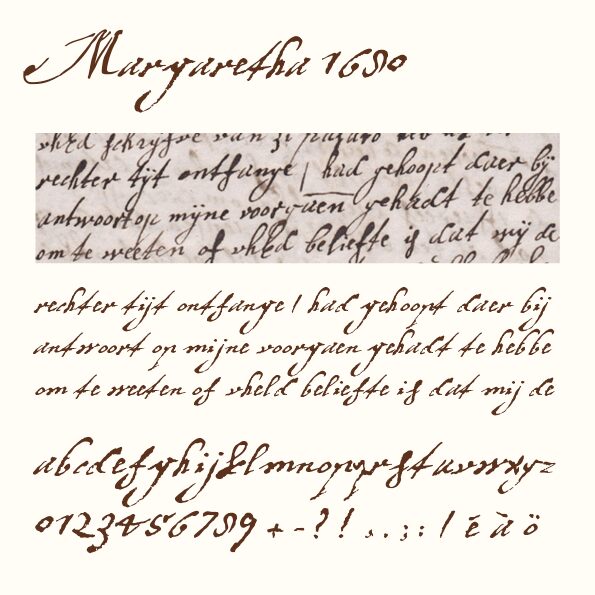
Margaretha is a captivating handwritten font that exudes elegance and charm. Inspired by the original lettre of Margaretha Turnor from 1680, this font masterfully captures the graceful, flowing strokes of historic calligraphy. With its delicate yet confident lines, Margaretha evokes a sense of timeless sophistication, making it an ideal choice for wedding invitations, luxury brand identities, and editorial layouts where a touch of refined artistry is desired.
The font's distinctive personality seamlessly blends tradition and modernity, offering designers a versatile tool to elevate their projects with a touch of refined, handcrafted appeal.
Margaretha is a font by Jos Elsendoorn, designed by Jos Elsendoorn in 2016.